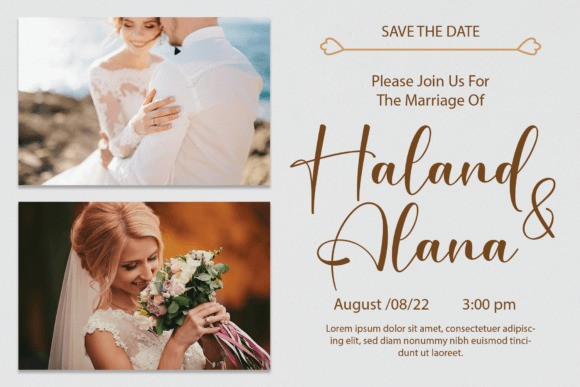
Winter Fest Font
Winter Fest Font is a charming handwritten font that combines bold and thin lines. Its playful style captures the cozy feeling of winter, making it great for holiday cards, decorations, and warm messages!